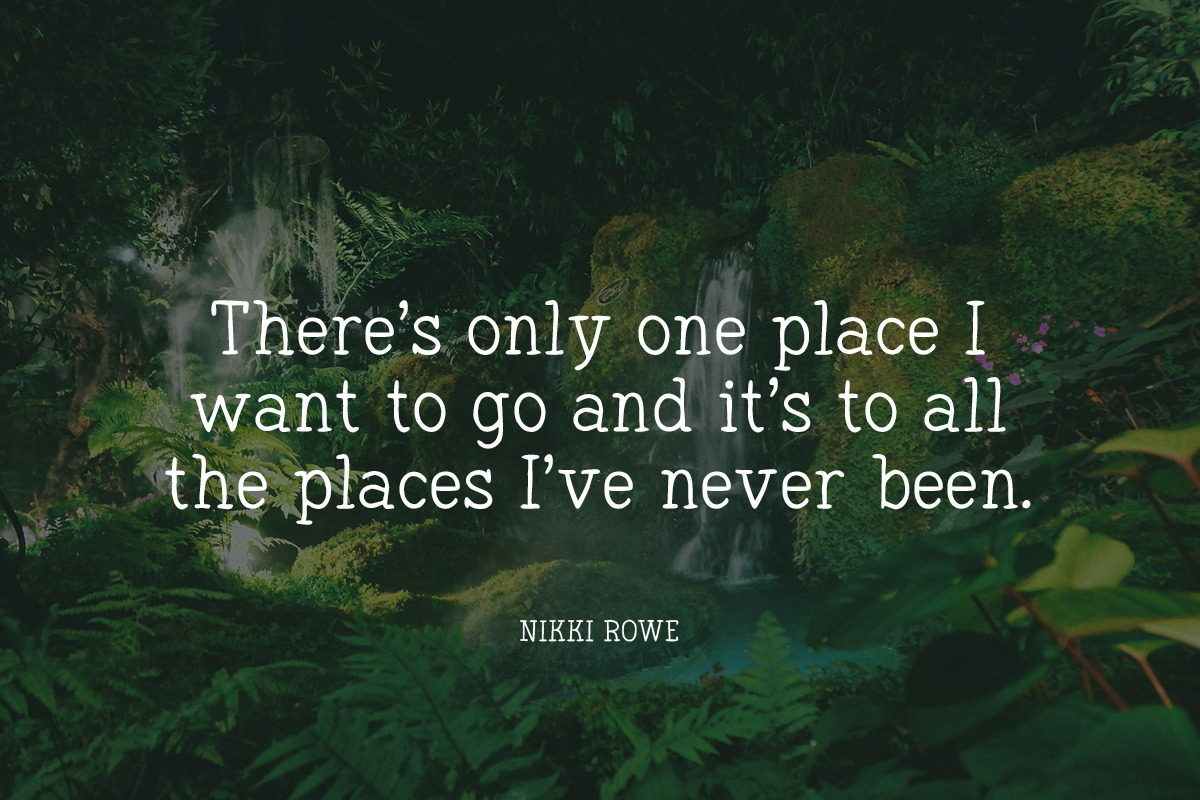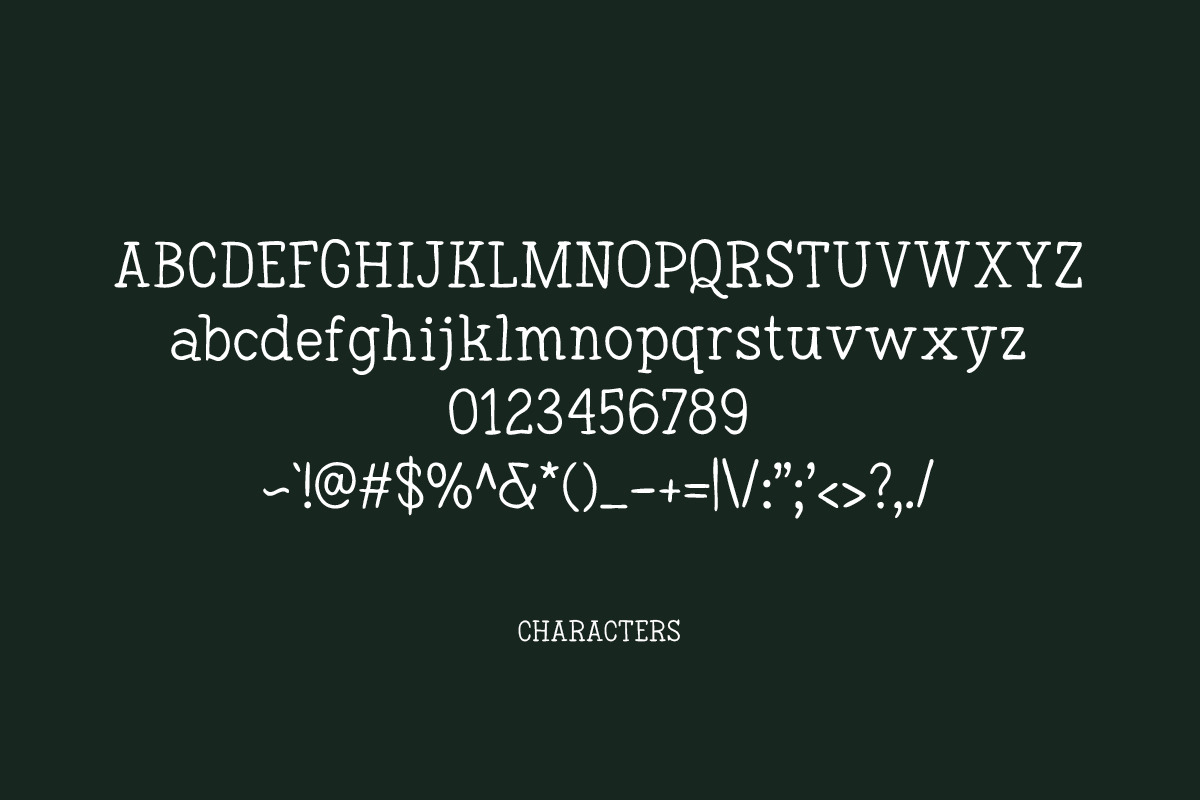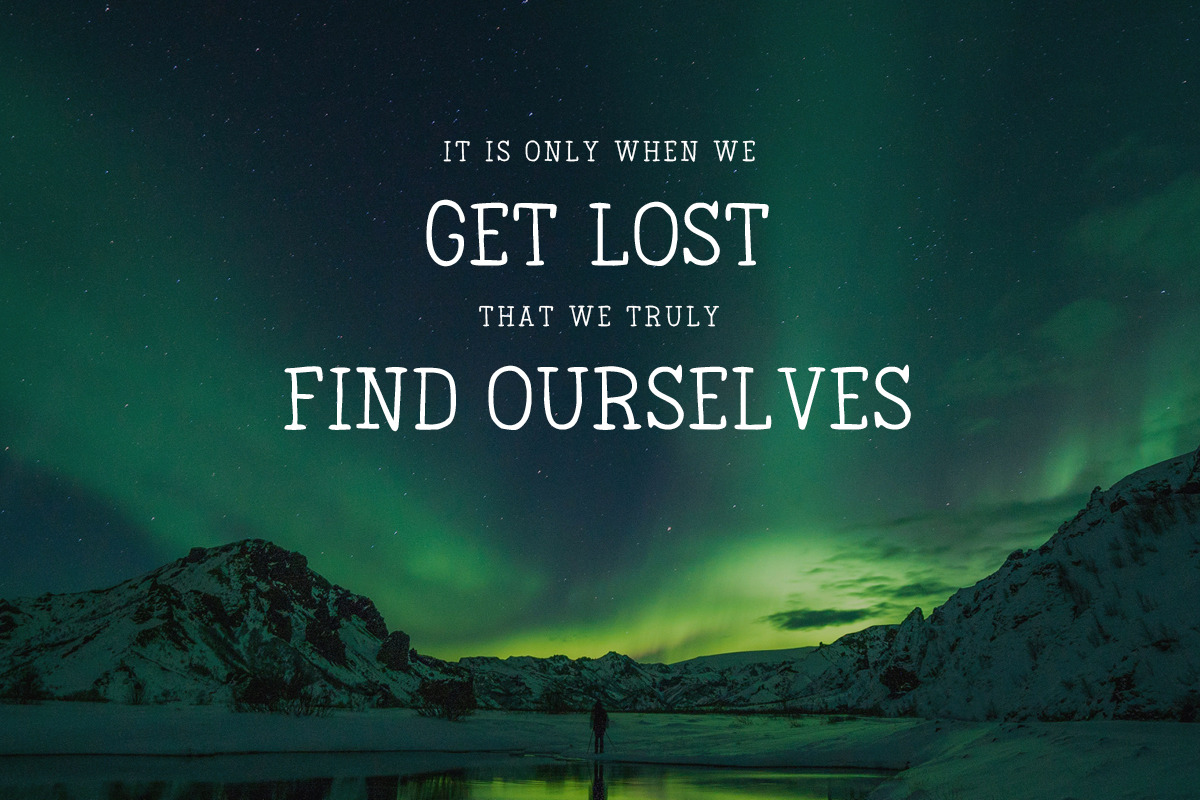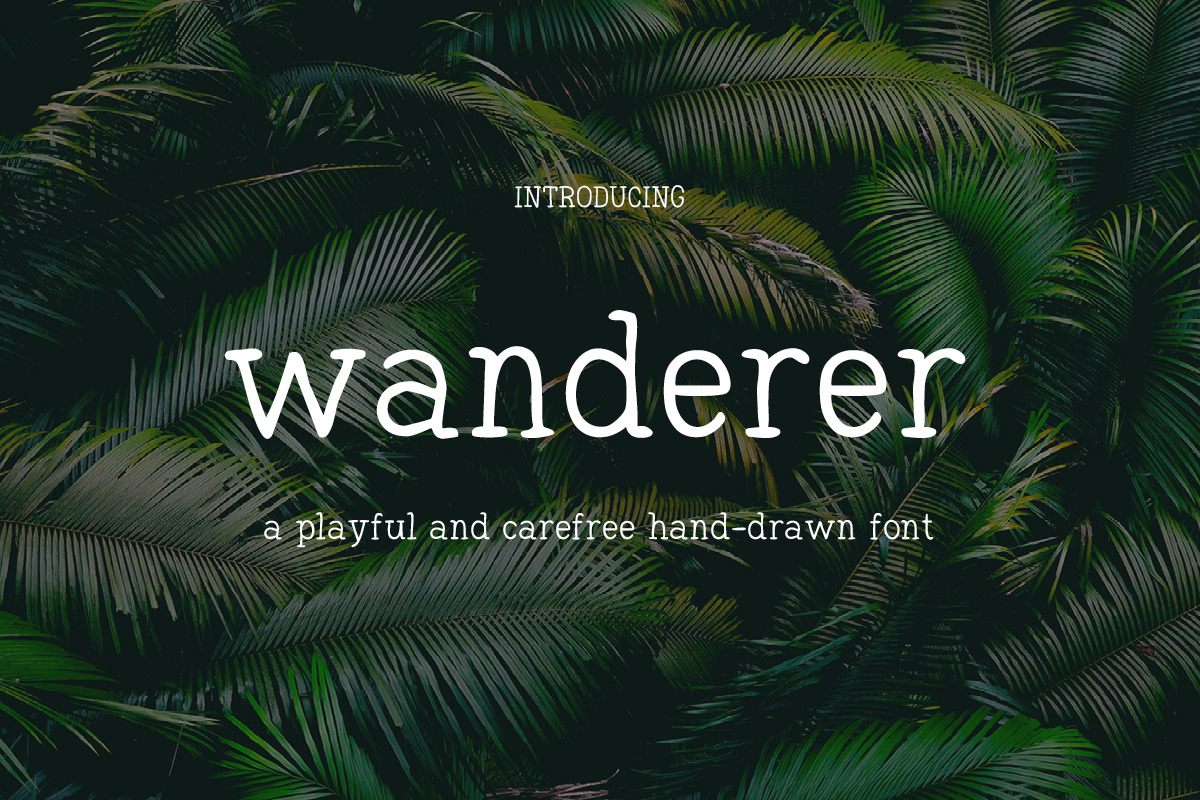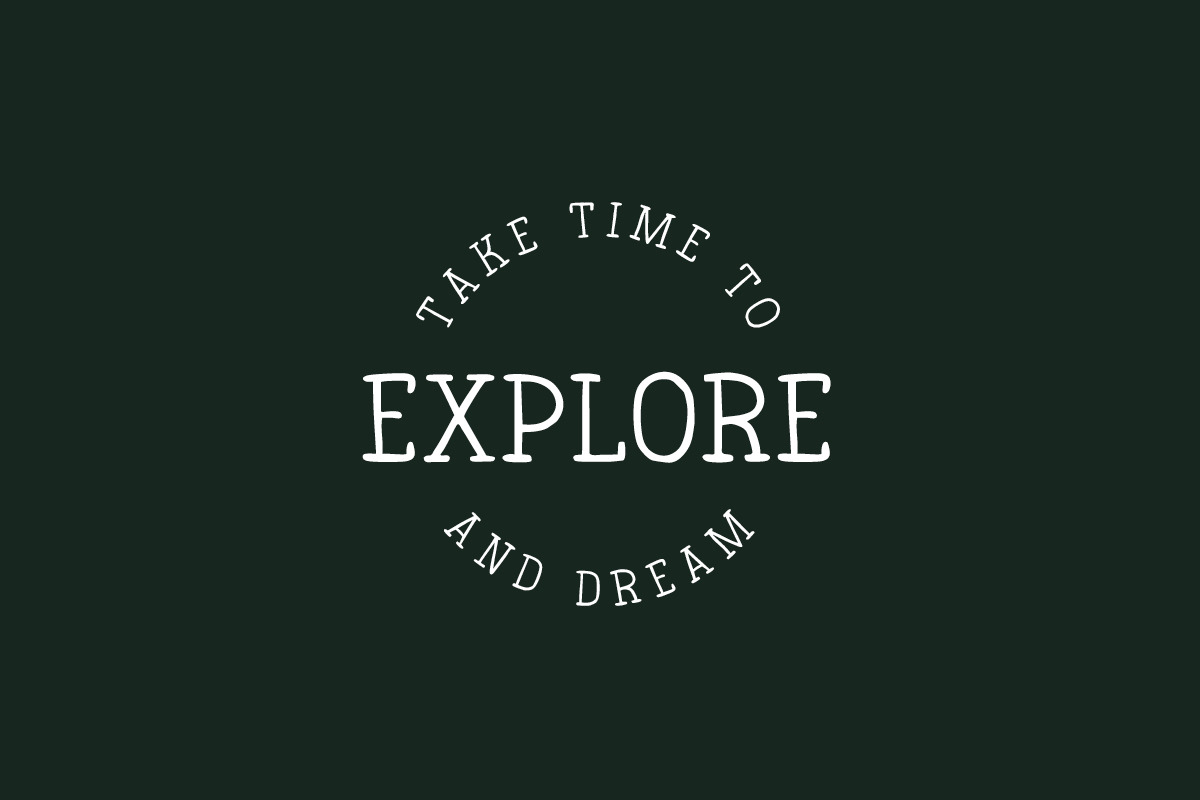
Wanderer – A Playful Serif Font
Meet Wanderer – your new type bestie for bringing light-hearted, whimsical charm to every design. With chunky serifs and a carefree attitude, this font is made for dreamers, makers, and magic-chasers.
Wanderer is a little imperfect, a little nostalgic, and full of personality. Whether you're creating packaging, quotes, journaling prompts, branding, or storybook-inspired merch, Wanderer will add that cozy spark you didn’t know you needed.
🌸 Perfect for: Affirmation cards Whimsigoth or cottagecore branding Zines, scrapbooks & creative journals Merch, posters, stickers, and more